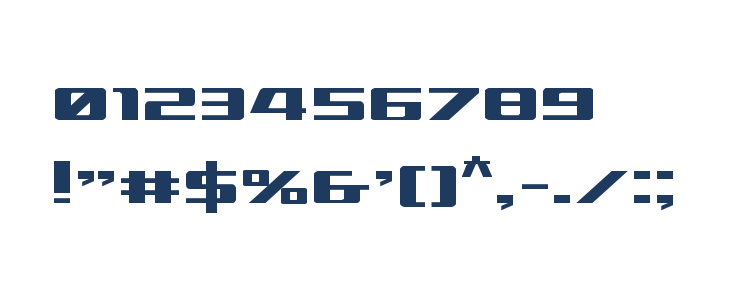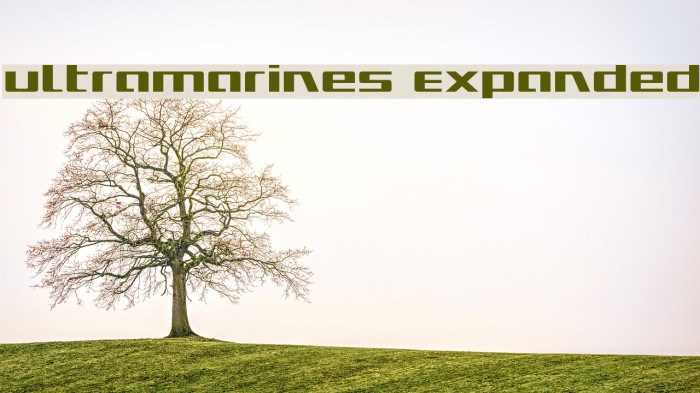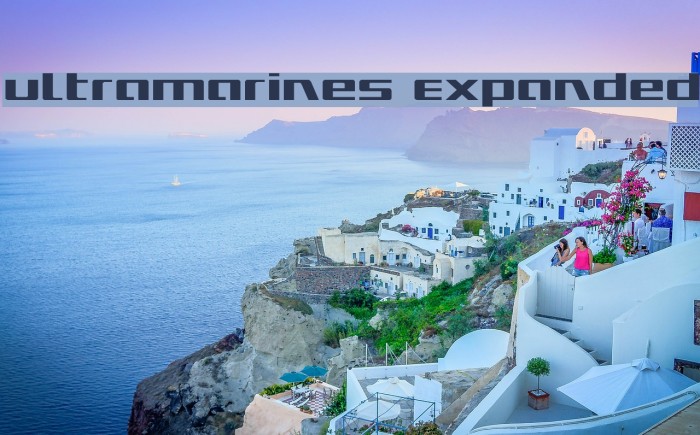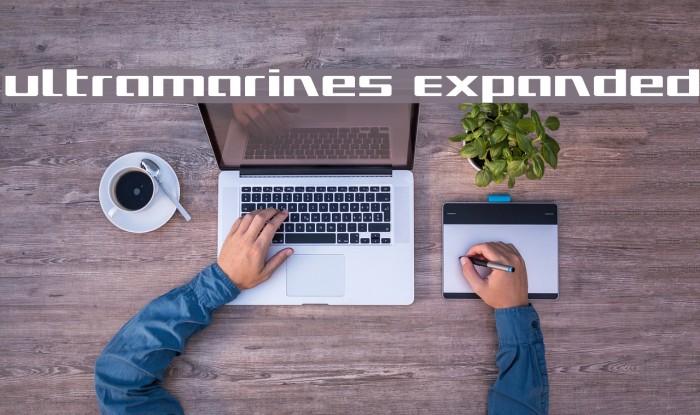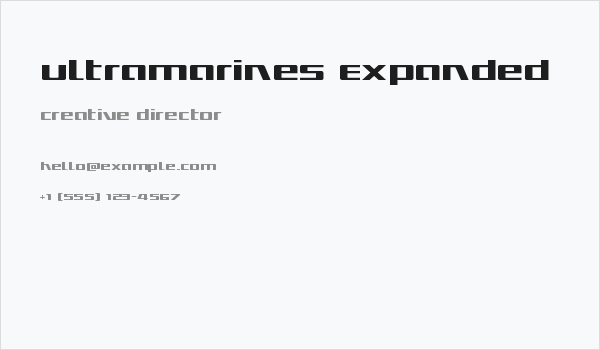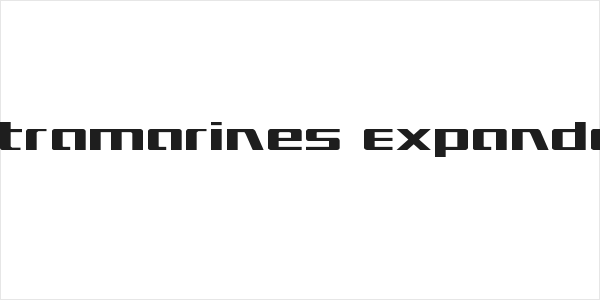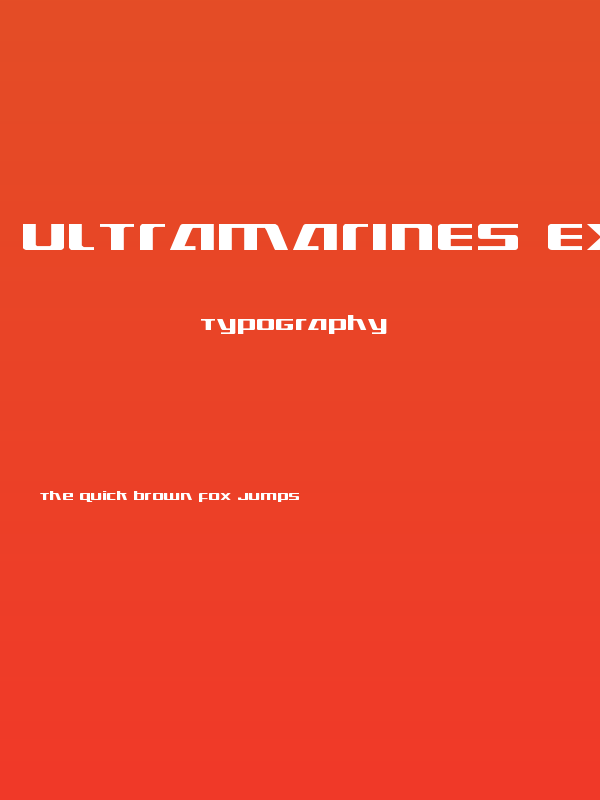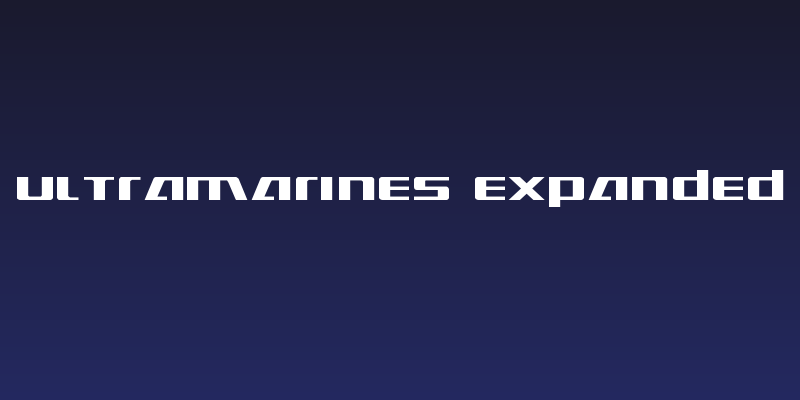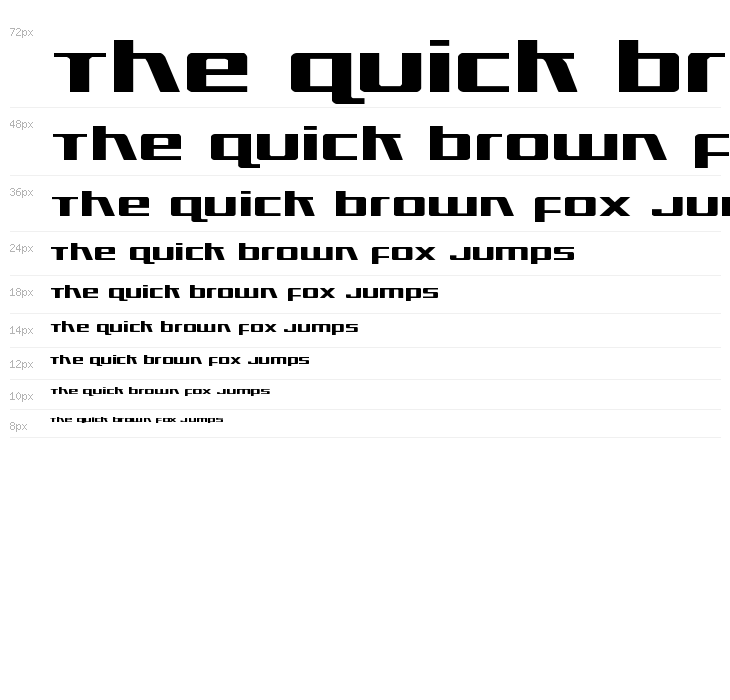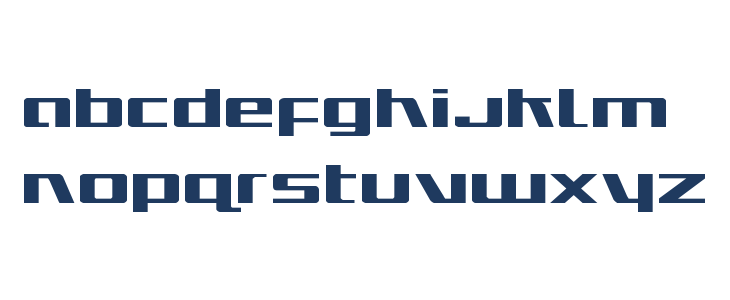
Ultramarines Expanded Font
Ultramarines Expanded Description
This font features a bold, futuristic design with strong geometric shapes and sharp angles. The characters are wide and have a distinct, expanded appearance, giving them a commanding presence. The uppercase and lowercase letters maintain a consistent style, with a unique blend of straight lines and curves that create a dynamic look. The numerals are equally bold, matching the overall aesthetic of the alphabet. Special characters are designed to complement the font's modern and edgy style, making it suitable for attention-grabbing headlines and logos.
Proposed ProjectsIdeal for sci-fi themed designs, technology branding, video game titles, and modern advertising.